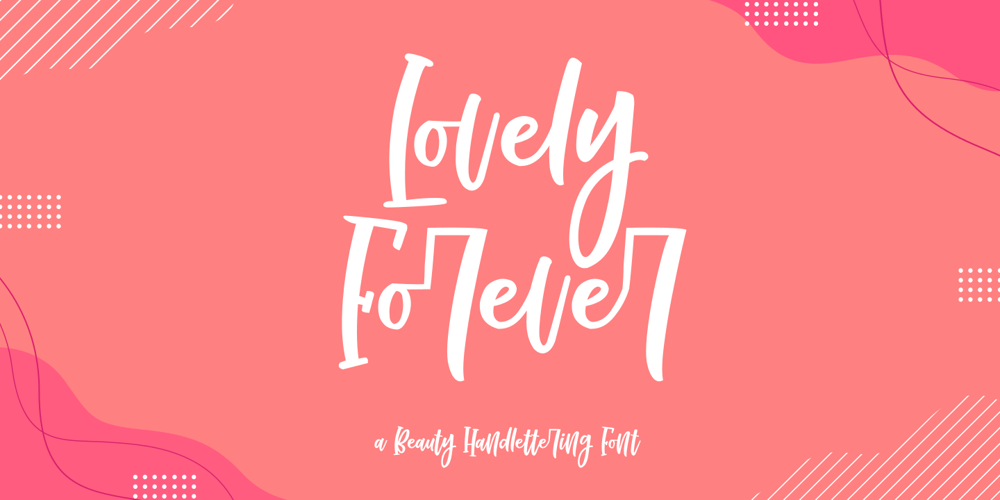
Lovely Forever Font Family was designed by Zeenesia Studio and published by Zeenesia Studio. Lovely Forever contains 1 styles and family package options. Introducing Lovely Forever Font is a sweet and friendly handwritten font. Its natural and unique style makes it incredibly fitting to a large pool of designs. perfect for large design project like Tshirt, mugs, Advertising, bags, quotes, food , poster, fashion, custom sticker, magazine, and many others. It completed with numbers and punctuation. Multilingual support, and came with PUA encoded.